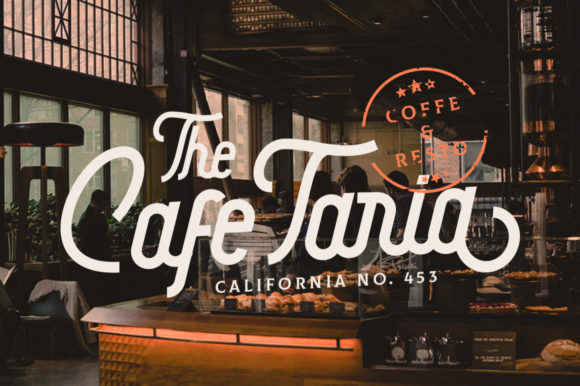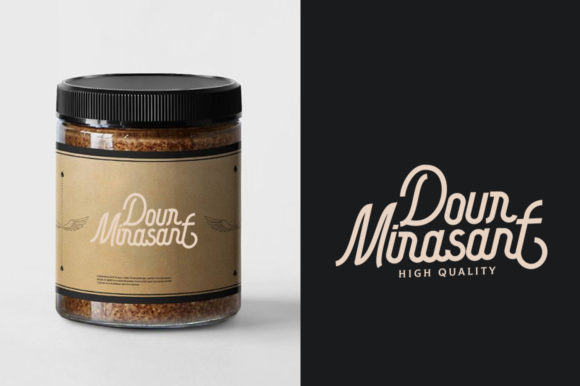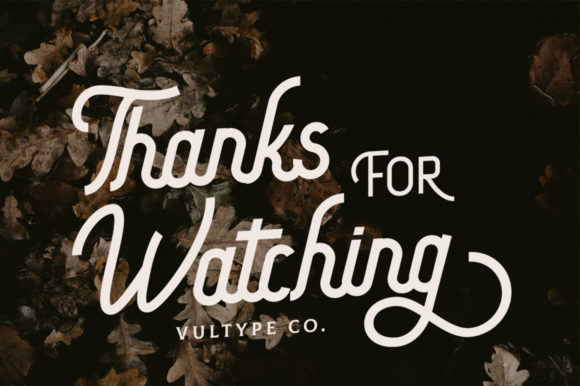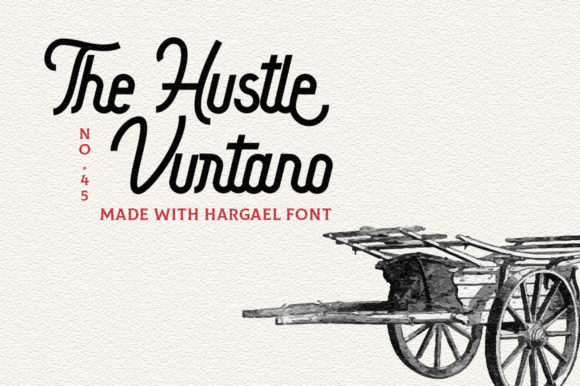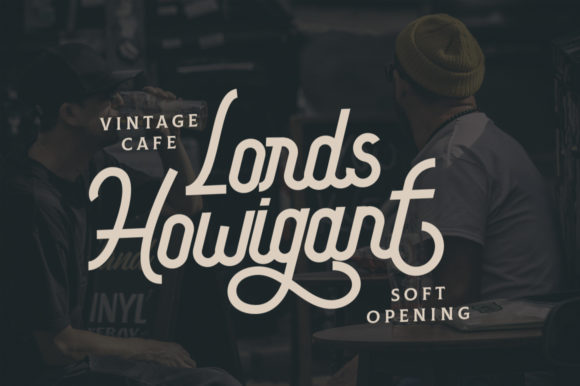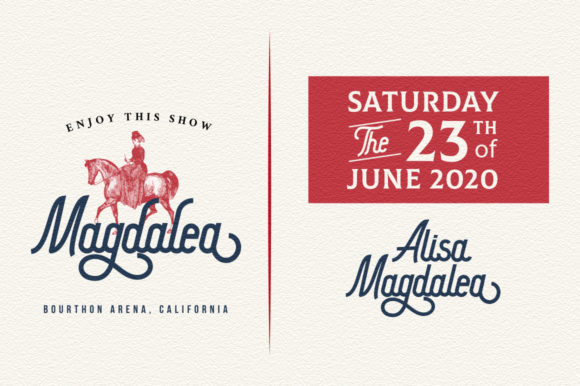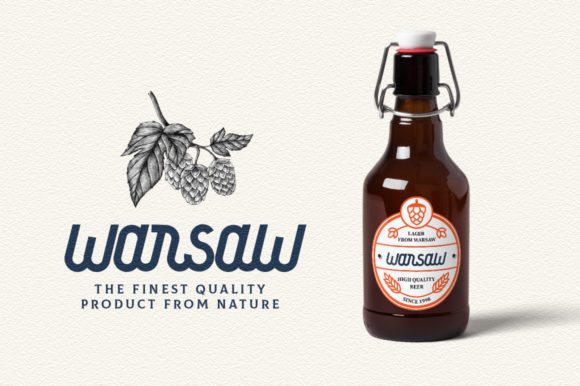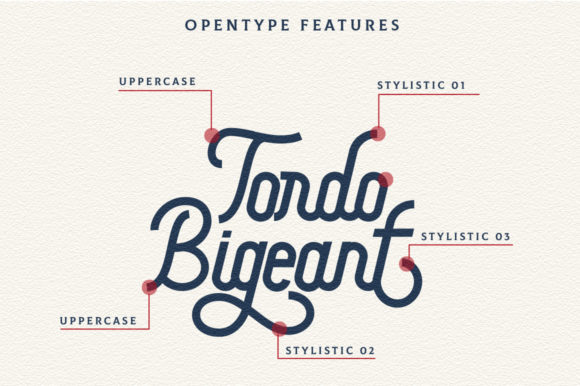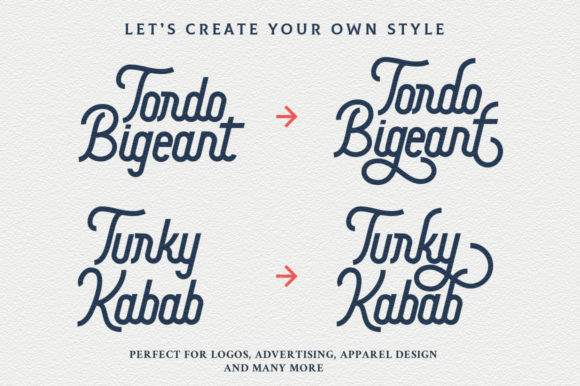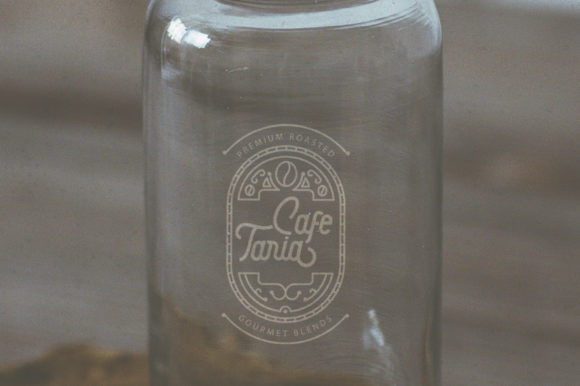
Hargael Duo Font
About Hargael Duo Font
Hargael is a stunning font duo that contains a Script & Sans font. Its beautiful swashes are inspired by all things vintage.